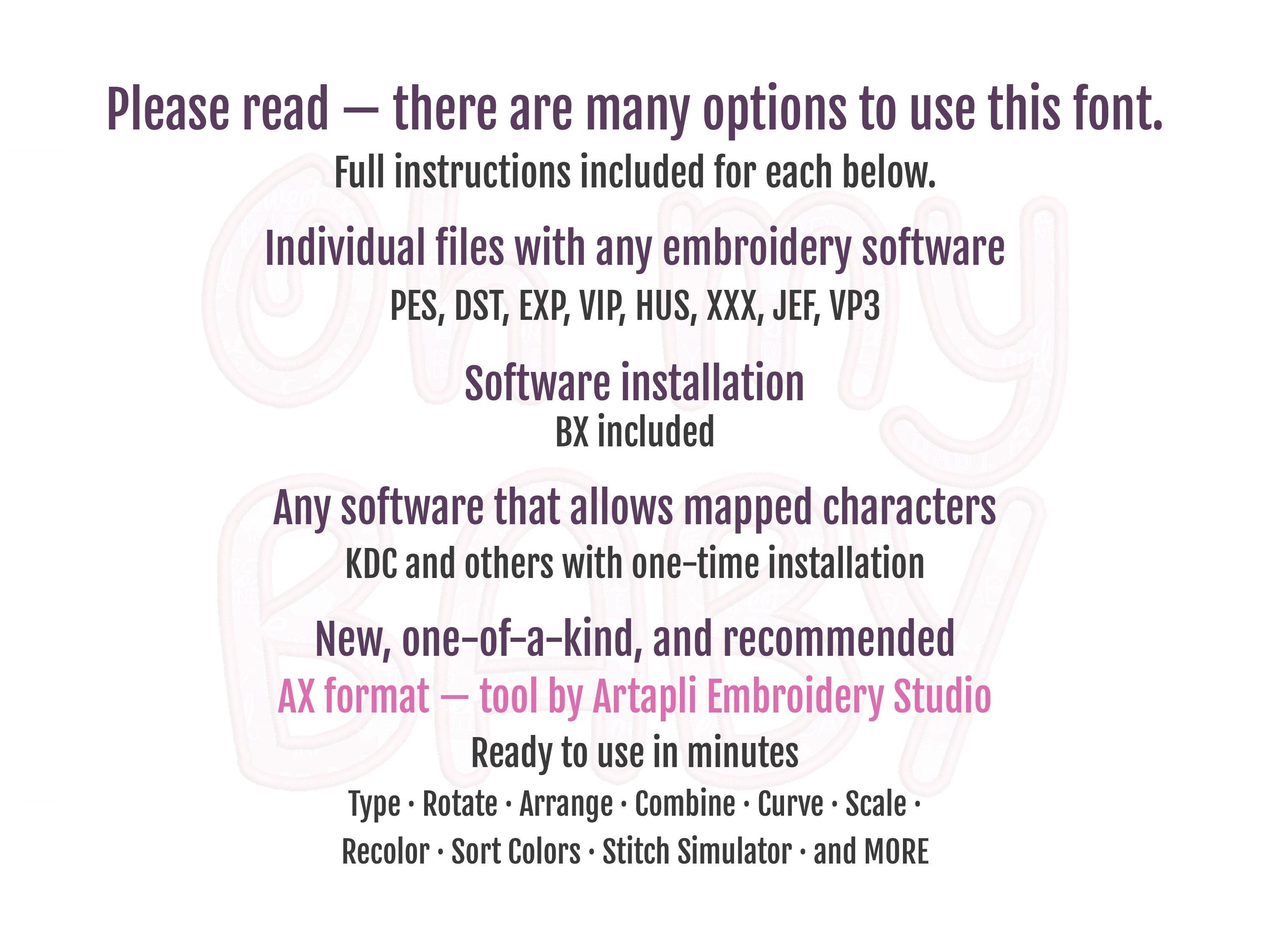
Cute applique monogram Font machine embroidery applique designs alphabet letters and numbers in sizes from 2.5, 3, 4.5 and 5 inches BX included
Uppercase and lowercase letters, numbers and punctuation.